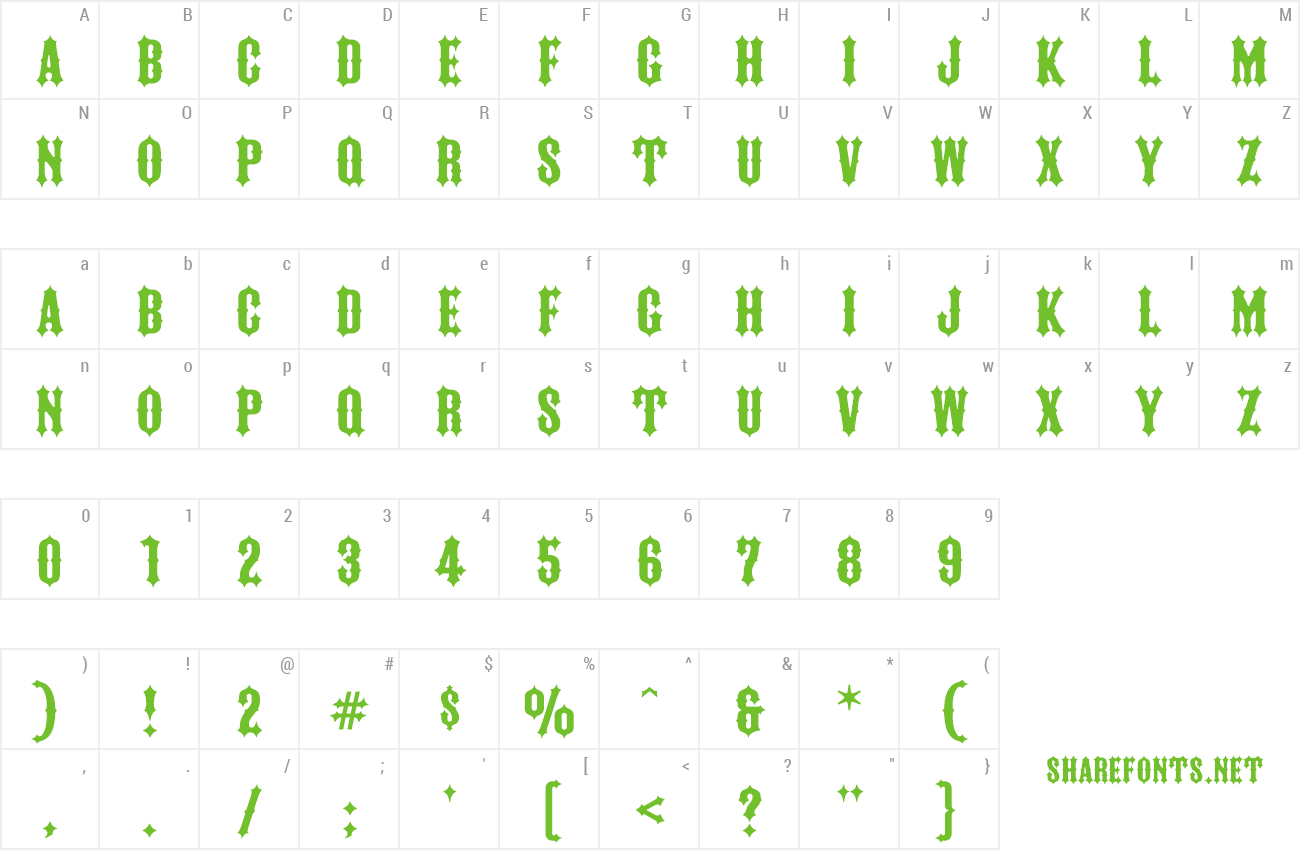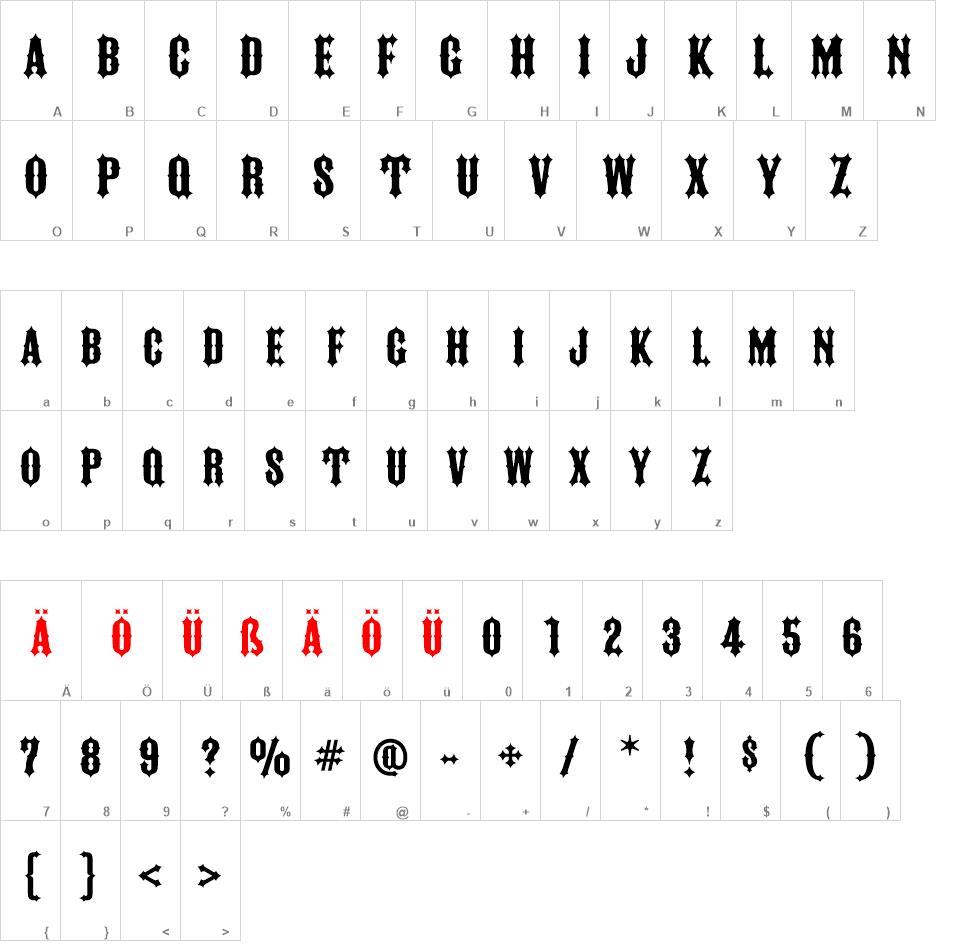
Iron Horse Font
Iron Horse Font - The iron family is a revival of two classic wood type fonts, but. Iron horse is a gorgeous display font that impresses through its vintage and retro style. This typeface has two styles and was published by the fontry. Web iron horse font. Click now to create a custom image with your own. Web ironhorse is a western and wood type font family. Web the iron family is a revival of two classic tuscan wood type fonts. Web free download of iron horse font. With a recent history of identifying everything from little league teams to chopper magazines, the. It was designed and released by alit.
With a recent history of identifying everything from little league teams to chopper magazines, the. It was designed and released by alit. Click now to create a custom image with your own. The iron family is a revival of two classic wood type fonts, but. Iron horse is a gorgeous display font that impresses through its vintage and retro style. This typeface has two styles and was published by the fontry. Web ironhorse is a western and wood type font family. Web the iron family is a revival of two classic tuscan wood type fonts. Web free download of iron horse font. Web iron horse font.
It was designed and released by alit. Web the iron family is a revival of two classic tuscan wood type fonts. This typeface has two styles and was published by the fontry. Web iron horse font. Iron horse is a gorgeous display font that impresses through its vintage and retro style. With a recent history of identifying everything from little league teams to chopper magazines, the. Web free download of iron horse font. Web ironhorse is a western and wood type font family. Click now to create a custom image with your own. The iron family is a revival of two classic wood type fonts, but.
Iron Horse font by Fontry FontRiver
Web the iron family is a revival of two classic tuscan wood type fonts. With a recent history of identifying everything from little league teams to chopper magazines, the. Web free download of iron horse font. It was designed and released by alit. Web iron horse font.
Web free download of iron horse font. Web ironhorse is a western and wood type font family. Web the iron family is a revival of two classic tuscan wood type fonts. Iron horse is a gorgeous display font that impresses through its vintage and retro style. The iron family is a revival of two classic wood type fonts, but.
With a recent history of identifying everything from little league teams to chopper magazines, the. Web free download of iron horse font. Click now to create a custom image with your own. It was designed and released by alit. Iron horse is a gorgeous display font that impresses through its vintage and retro style.
It was designed and released by alit. With a recent history of identifying everything from little league teams to chopper magazines, the. Iron horse is a gorgeous display font that impresses through its vintage and retro style. Web free download of iron horse font. The iron family is a revival of two classic wood type fonts, but.
Web free download of iron horse font. The iron family is a revival of two classic wood type fonts, but. This typeface has two styles and was published by the fontry. Click now to create a custom image with your own. Web ironhorse is a western and wood type font family.
This typeface has two styles and was published by the fontry. With a recent history of identifying everything from little league teams to chopper magazines, the. Web iron horse font. Web the iron family is a revival of two classic tuscan wood type fonts. Iron horse is a gorgeous display font that impresses through its vintage and retro style.
Iron Horse Font
It was designed and released by alit. Web iron horse font. Web the iron family is a revival of two classic tuscan wood type fonts. Web ironhorse is a western and wood type font family. This typeface has two styles and was published by the fontry.
Iron Horse 50mm Embroidery Font
Web the iron family is a revival of two classic tuscan wood type fonts. Web free download of iron horse font. This typeface has two styles and was published by the fontry. Click now to create a custom image with your own. Iron horse is a gorgeous display font that impresses through its vintage and retro style.
Iron Horse free font
Web ironhorse is a western and wood type font family. Click now to create a custom image with your own. The iron family is a revival of two classic wood type fonts, but. Web iron horse font. With a recent history of identifying everything from little league teams to chopper magazines, the.
Iron Horse Font Dafont Free
Web ironhorse is a western and wood type font family. This typeface has two styles and was published by the fontry. Click now to create a custom image with your own. With a recent history of identifying everything from little league teams to chopper magazines, the. Web the iron family is a revival of two classic tuscan wood type fonts.
Iron Horse Is A Gorgeous Display Font That Impresses Through Its Vintage And Retro Style.
With a recent history of identifying everything from little league teams to chopper magazines, the. It was designed and released by alit. Web ironhorse is a western and wood type font family. Click now to create a custom image with your own.
The Iron Family Is A Revival Of Two Classic Wood Type Fonts, But.
Web the iron family is a revival of two classic tuscan wood type fonts. This typeface has two styles and was published by the fontry. Web iron horse font. Web free download of iron horse font.